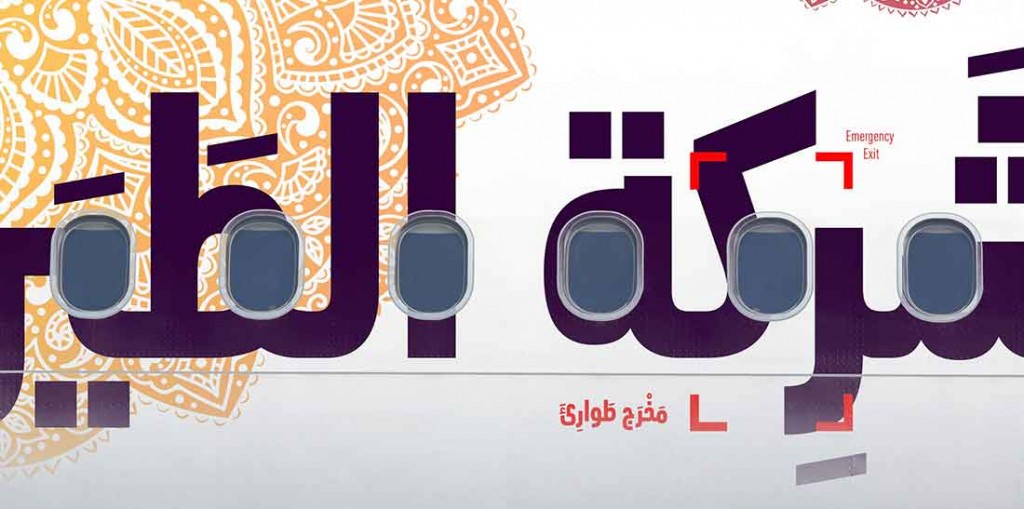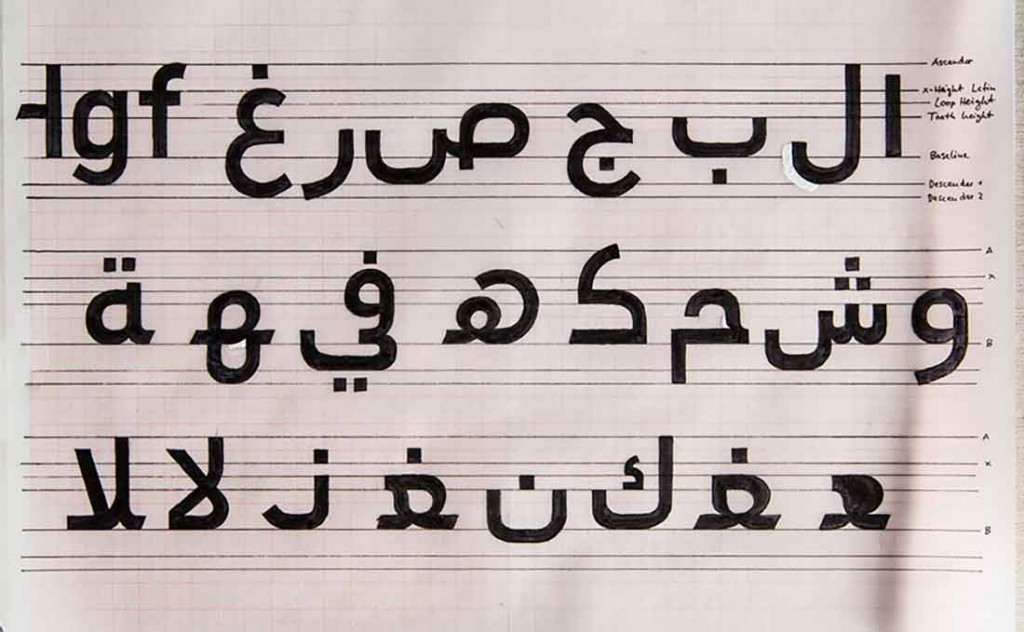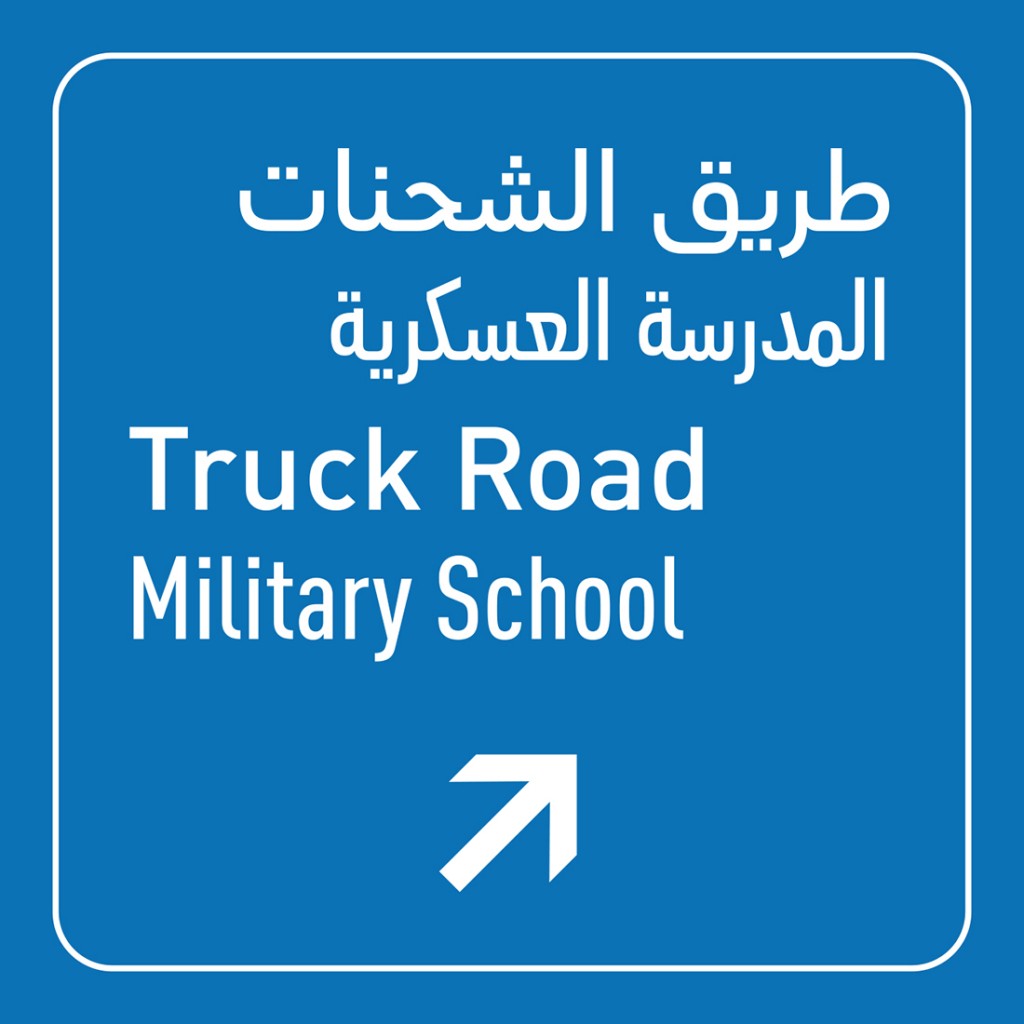
Name: FF DIN Arabic
Designers: Yanone (shorthand for Jan Gerner)
Foundry: FontFont
Release Date: February 26, 2016
Back story: In 2014, FF DIN Arabic was commissioned as the fourth Arabic type family in the FontFont library. Unlike most Arabic type families, it features a condensed version in addition to its regular width, which presents a challenge when it comes to addressing two distinct styles of Arabic lettering, Kufi and Naskh, while also honoring the written language’s overall calligraphic origins.
The more geometric Kufi styles, inspired by ornamental lettering in patterns, tiles, and architecture, have squared shapes and open counters that allow them to be condensed with relative ease. In contrast, Naskh and Thuluth cursive styles have organic, flowing shapes with wider, more expansive proportions. The horizontal heaviness of the strokes, paired with small internal counters that tend to close up when the horizontal proportions are reduced, make it tricky to devise a readable condensed version of these styles.
Why’s it called FF DIN Arabic? This typeface was designed as a companion to the range of Albert-Jan Pool’s widely used FF DIN family that already supports Latin, Greek, and Cyrillic alphabets. It seems fitting that Yanone, a German type designer, is the creator of an Arabic version of DIN. In 1931 the German standards body DIN, Deutsches Institut für Normung (German Institute for Standardization), published DIN 1451, consisting of several standard typefaces that were used on road signage and license plates in Germany and a number of other countries.
What are its distinguishing characteristics? FF DIN Arabic has a full range of condensed weights and comes in three variants with square, circular, and rhombus-shaped dots. Yanone says, “The regular weights of FF DIN Arabic originated from handwriting and are explicitly based on a simplified Naskh skeleton. To create the condensed version, I started with those shapes and applied the language of the Latin DIN Condensed to it… Apart from one single glyph, any resemblance with Kufi is coincidental, and I’d like to see it more as a Naskh derivative than an actual hybrid.”
What should I use it for? The compression of this typeface’s Naskh-based design allows designers to fit as many words as possible into long headlines otherwise difficult to deal with in Arabic fonts. It’s also useful on signage.
Who’s it friends with? FF DIN Arabic take a nicely complementary approach to Linotype’s two popular typefaces Arabic DIN Next, designed by Nadine Chahine, and Isra, which both have more of a kinship to Kufi styles.